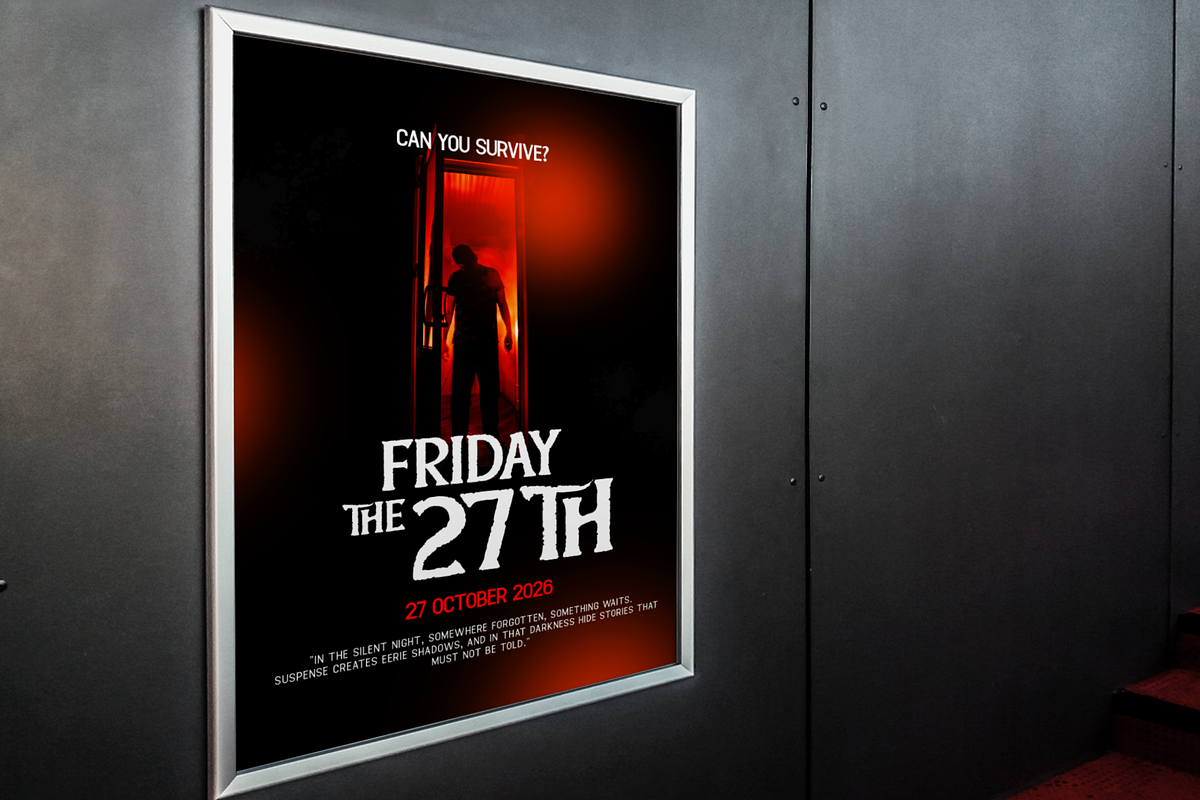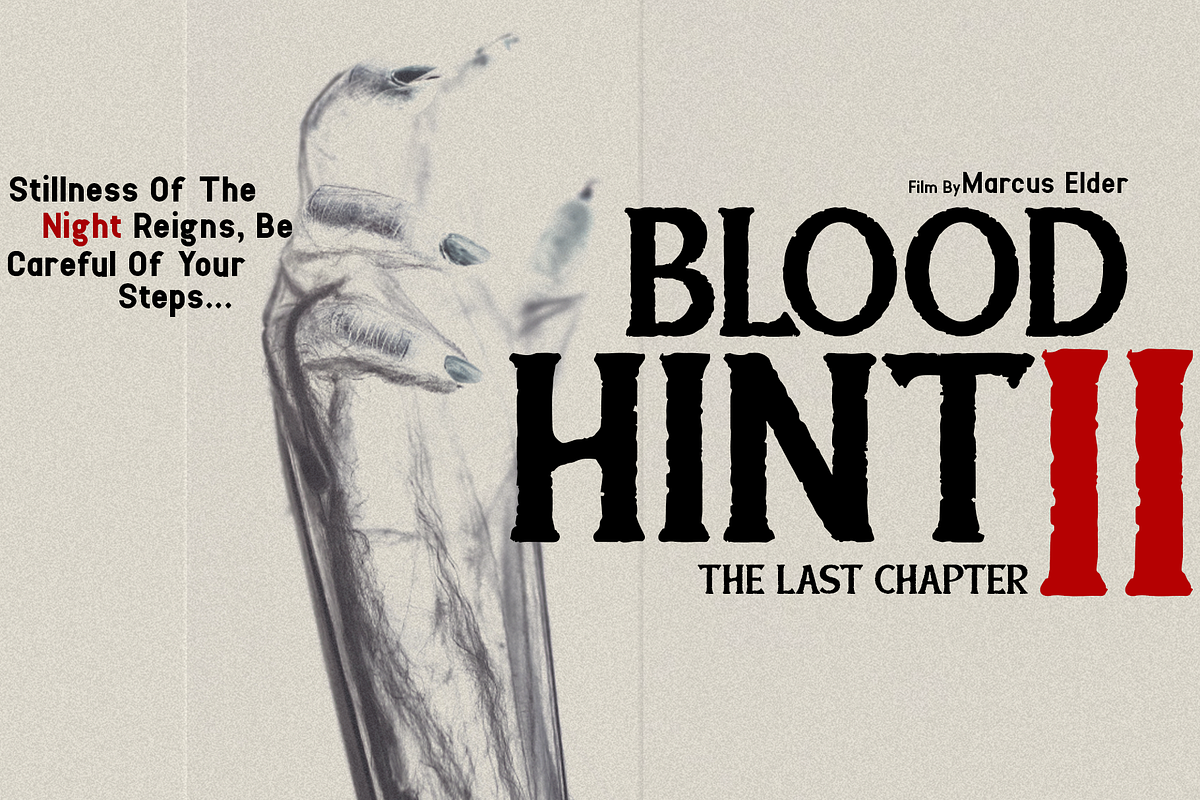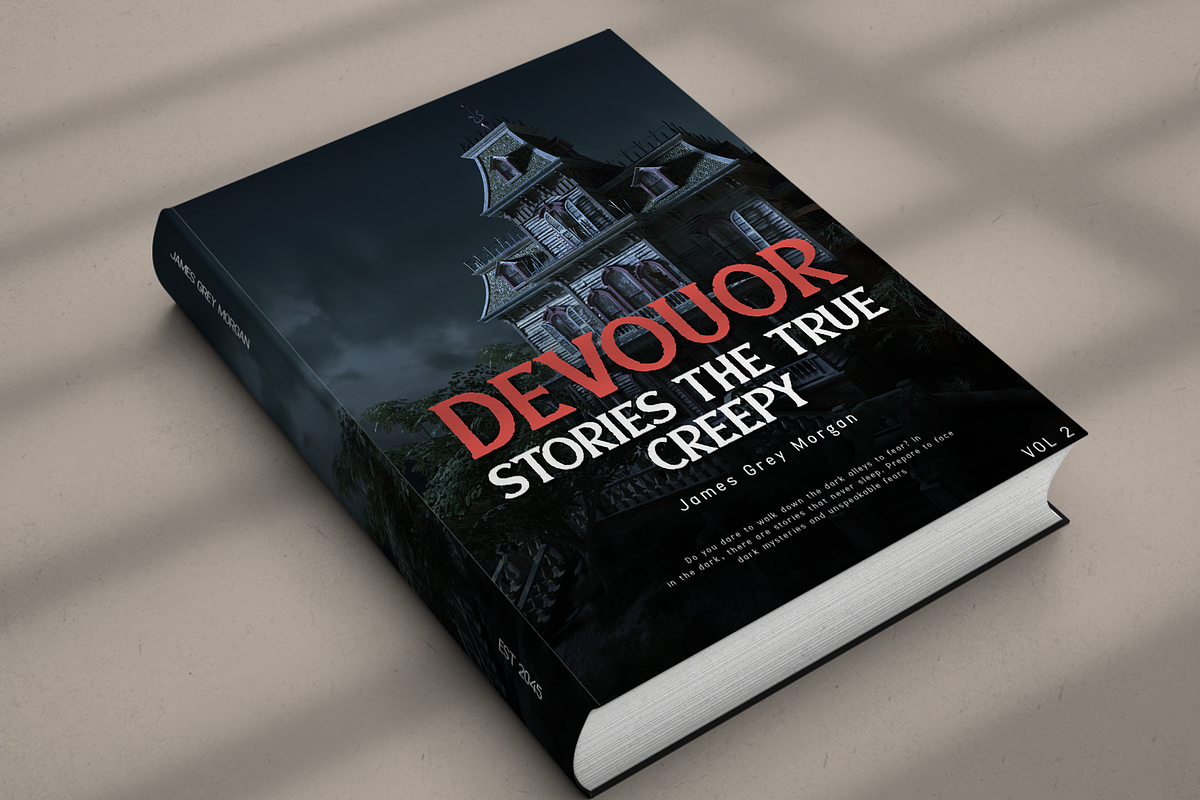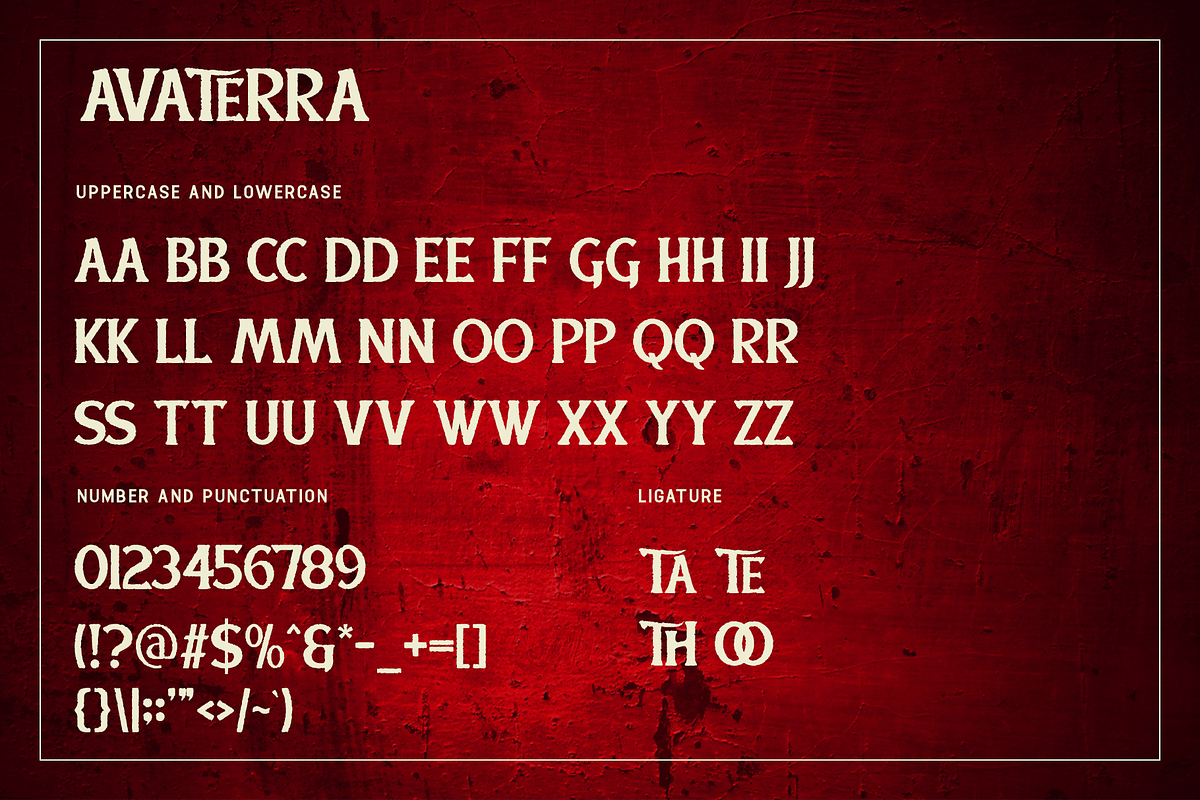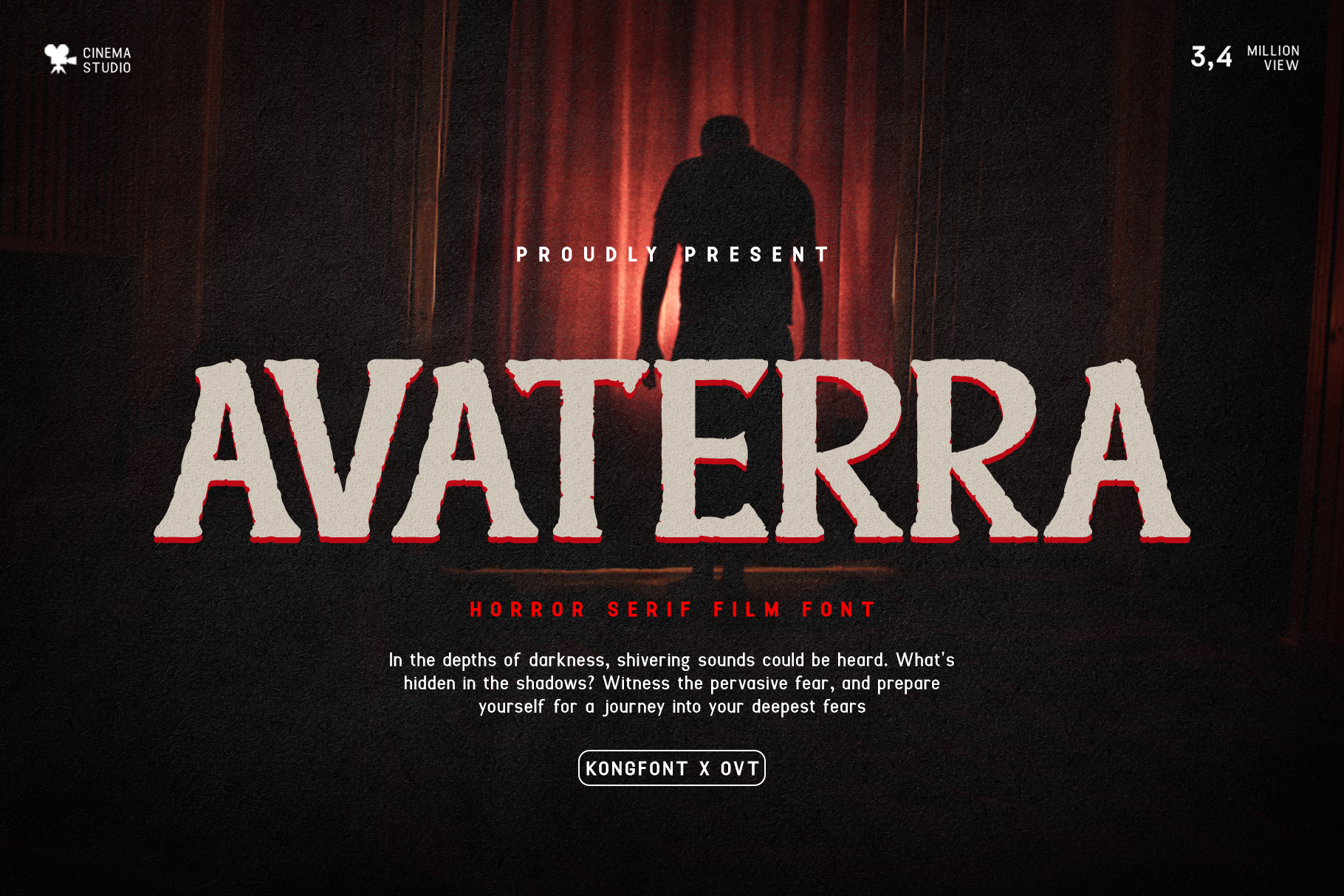
Avaterra - Horror Serif Film Font
Step into the shadows with "Avaterra," a chilling horror serif font designed specifically for the film industry and thematic projects that demand a touch of terror. Avaterra combines the timelessness of serif typography with the eerie subtleties required to convey fear and suspense.
This font is ideal for movie titles, promotional posters, book covers dealing with horror themes, and any design work that aims to evoke a spine-chilling mood. Avaterra features a unique blend of sharp and jagged edges that mimic the unsettling atmosphere of horror visuals, making text appear as if it’s part of a dark, foreboding landscape.
Complete with a full set of uppercase and lowercase letters, numerals, punctuation, and broad multilingual support, Avaterra is versatile enough to handle complex typographic needs while still providing that essential creepy vibe. Whether you’re crafting titles for the next horror blockbuster or designing an eerie book layout, Avaterra will serve as your gateway to the macabre.
Avaterra is the perfect horror serif font for designers who dare to delve into the dark.